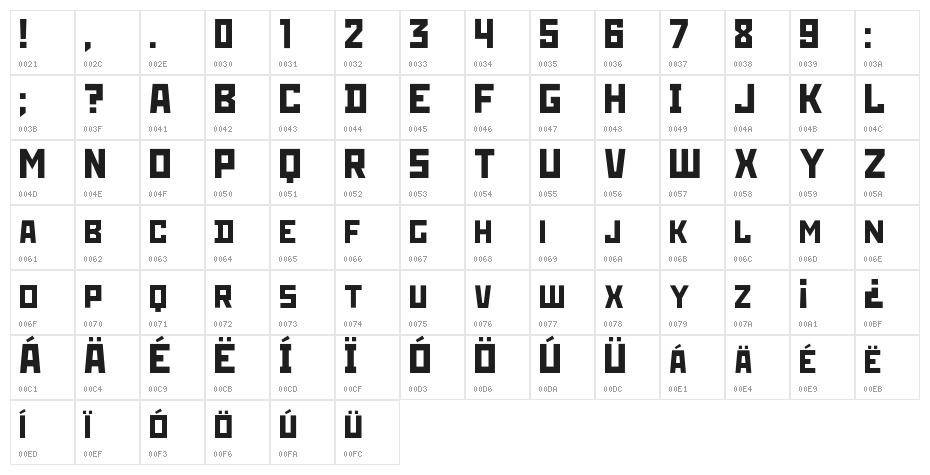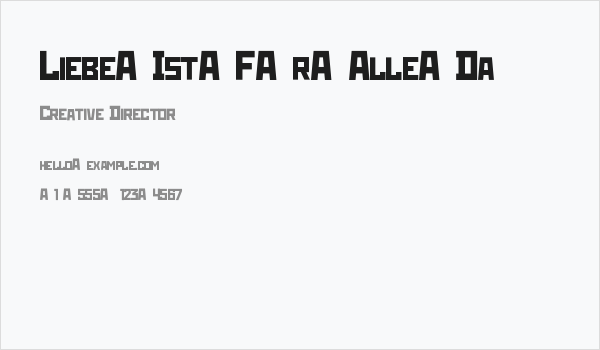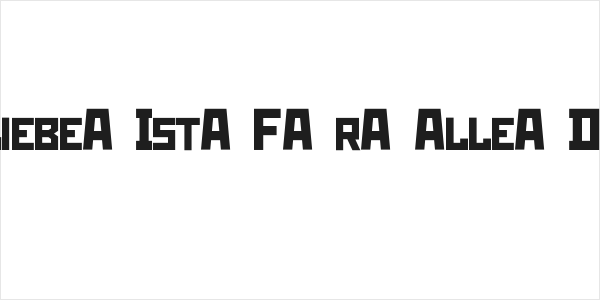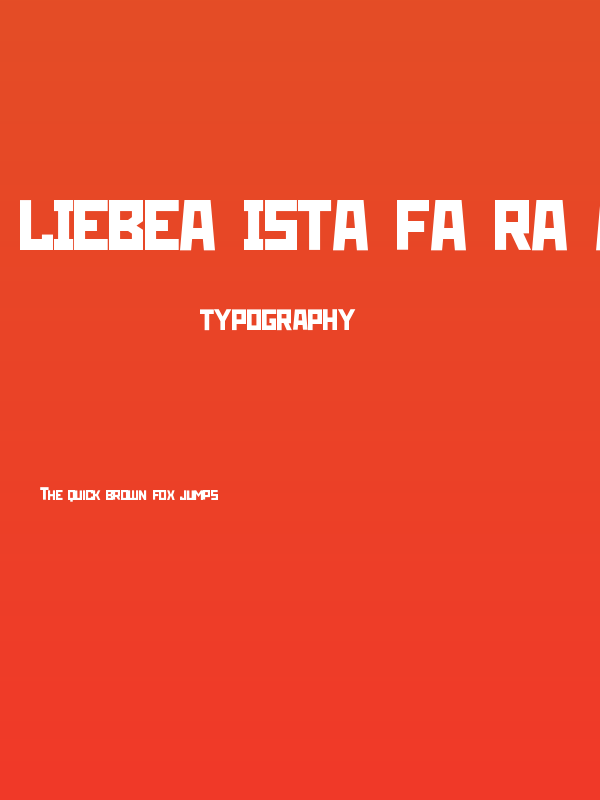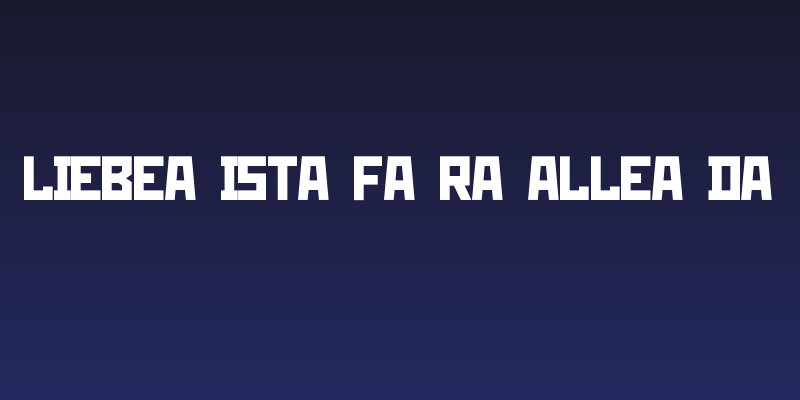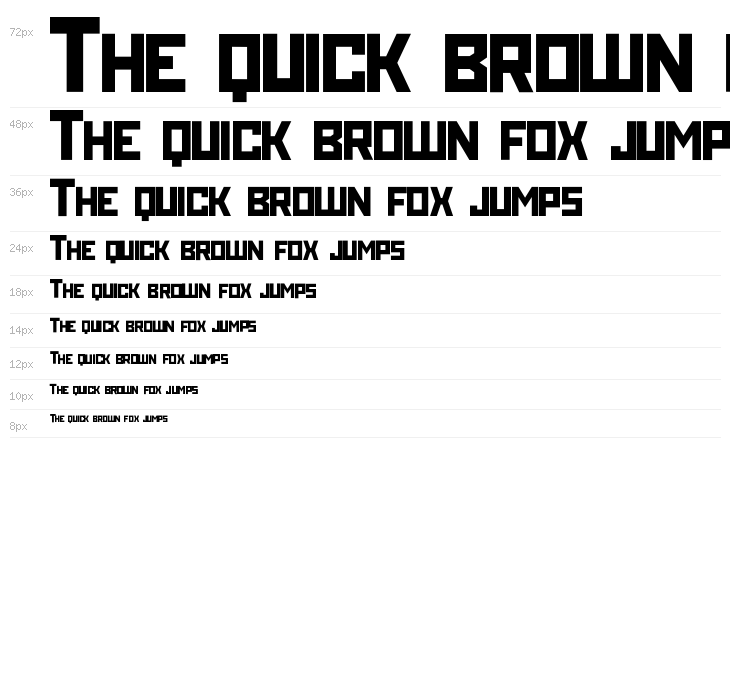
Liebe-Ist-F-r-Alle-Da Font
Liebe-Ist-F-r-Alle-Da Description
This font features a bold and impactful design, characterized by its thick, uniform strokes and geometric shapes. The letters are constructed with a strong emphasis on vertical and horizontal lines, giving it a robust and stable appearance. The absence of serifs and the consistent stroke width contribute to a modern and clean aesthetic. The overall style is straightforward yet assertive, making it suitable for attention-grabbing headlines and logos. Its simplicity and clarity ensure readability even at smaller sizes, while the boldness adds a commanding presence.